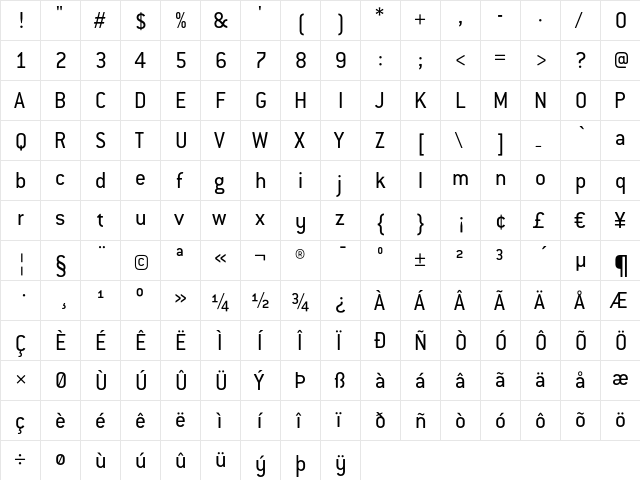
Conduit ITC Regular Font Preview
Conduit ITC Regular
Conduit ITC Regular Font Details
Design Context for Conduit ITC Typeface
Conduit ITC is a composed and adaptable typeface that performs quietly and consistently across a wide range of design contexts. The condensed width makes it efficient for tight spaces without sacrificing legibility.